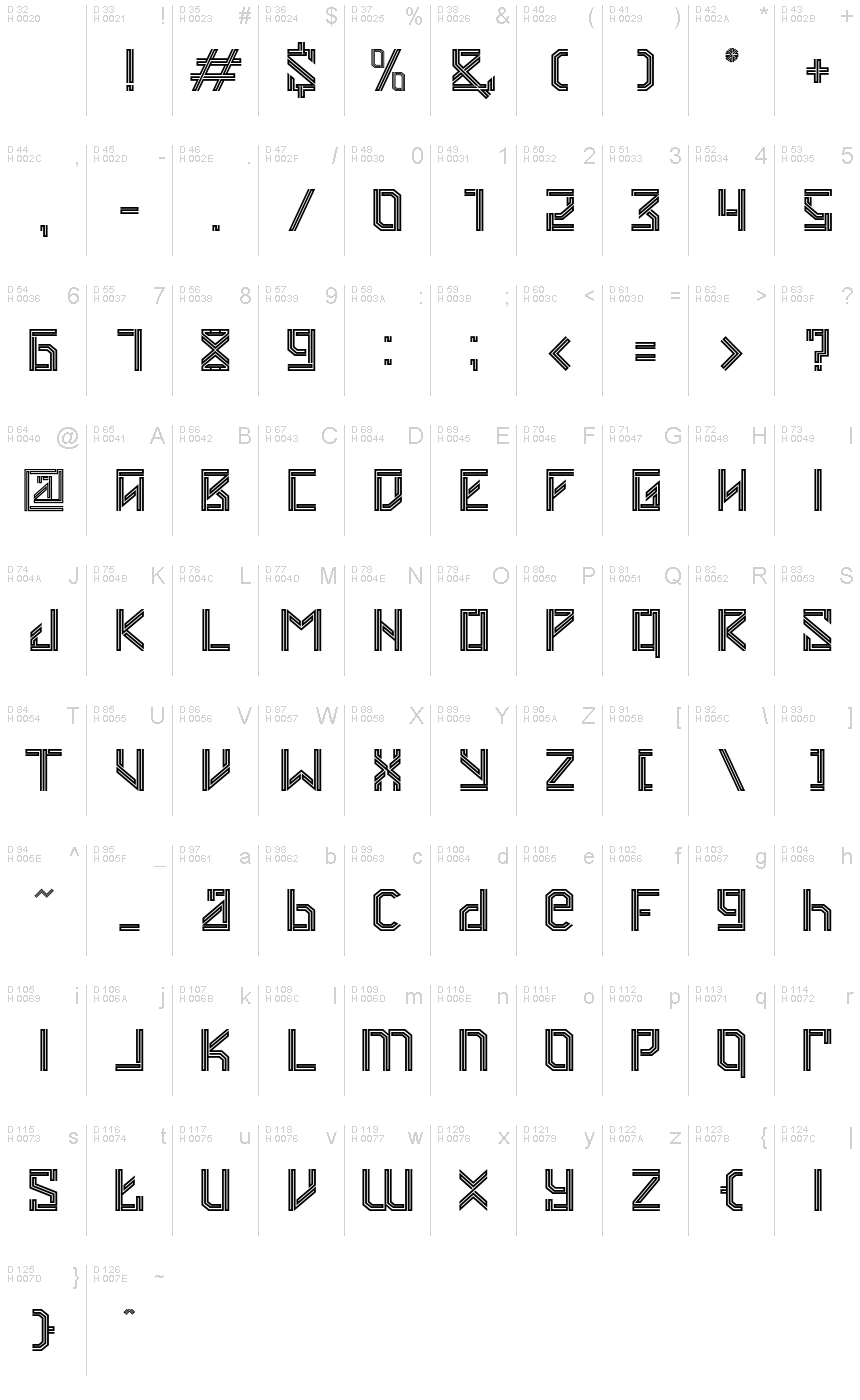
Neonbox
Neonbox font, designed by PutraCetol Studio, exudes a dynamic techno flair that captures the essence of modern design. Its striking appearance features bold, angular forms that create an eye-catching visual impact. The interplay of light and dark elements serves to enhance its energetic aesthetic, making it a perfect fit for vibrant branding initiatives.
This distinct display font's innovative design beckons attention, making it ideal for posters, album covers, and tech-related publications. Neonbox can elevate any project seeking a futuristic vibe while maintaining clarity in communication. Its captivating style allows it to shine in both digital and print formats, ensuring versatility across various creative applications. Whether aiming for an immersive experience or simply to stand out, Neonbox is a compelling choice for designers looking to make a statement.